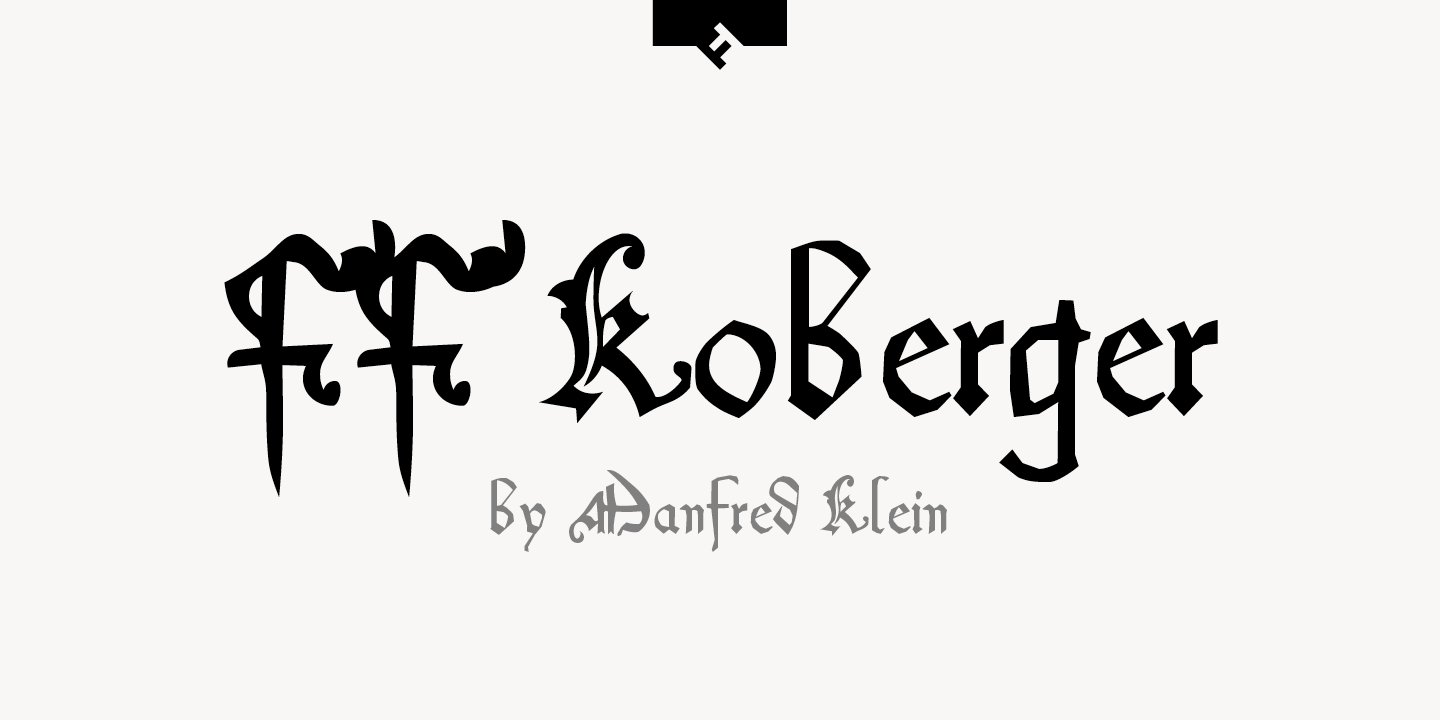
FF Koberger Font is perfect for historical book publishing, medieval manuscript reproductions, academic research publications, cultural heritage museums, traditional craft guilds, antique bookstore branding, classical education materials, and authentic period document designs.
What makes FF Koberger Font truly exciting is its extraordinary ability to transport readers back to the golden age of European printing through meticulously crafted letterforms that faithfully recreate the beauty and craftsmanship of 15th-century incunabula. This remarkable typeface features authentic historical characteristics with subtle ink-spread effects and traditional proportions that honor the legacy of master printer Anton Koberger, making it the ideal choice for projects requiring genuine historical authenticity and scholarly gravitas.
The FF Koberger Font family includes regular, italic, and bold weights, complemented by historical ligatures and period-appropriate ornamental elements that enhance the authentic medieval atmosphere, providing designers with comprehensive tools for creating scholarly brand experiences and historically accurate communications that resonate with academic and cultural institutions.
Academic publishers and cultural organizations will discover that FF Koberger Font Free Download delivers the scholarly authority and historical authenticity needed to establish credibility in educational and research contexts. This versatile typeface excels in both intimate book typography and larger exhibition materials, maintaining its historical character while ensuring optimal readability for modern audiences.
The font's scholarly construction demonstrates profound respect for historical typography traditions while meeting contemporary publishing standards. From academic journals to museum exhibitions, this authentic typeface maintains its medieval dignity while providing the functionality needed for modern scholarly applications. Educational institutions appreciate how this font effortlessly communicates scholarship, heritage, and distinguished American appreciation for European historical design excellence through superior medieval-inspired typography.